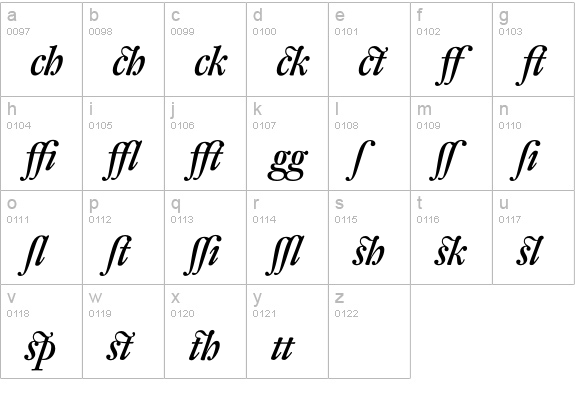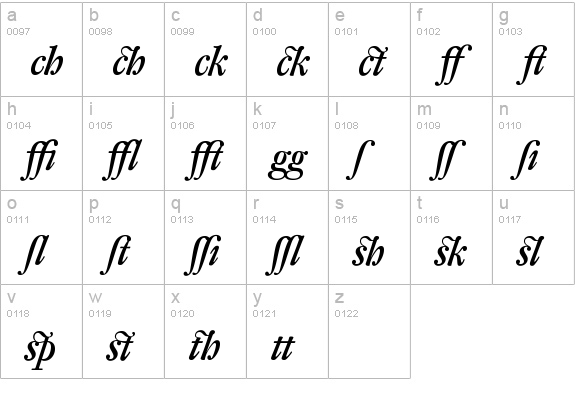
DTL Fleischmann D Medium Italic Alt Font Details
DTL Fleischmann D Medium Italic Alt is a balanced, medium-weight, italic variant in the DTL typeface family \xE2\x80\x94 well suited to sub-headlines, navigation, and balanced editorial work.
The DTL Fleischmann D Medium Italic Alt font is a classic and elegant typeface that exudes sophistication and professionalism. Its medium weight and italic style add a touch of flair to any design project, making it perfect for use in editorial layouts, branding materials, and more. What sets this font apart is its alternative characters that offer a unique and distinctive look. The subtle curves and slanted angles of the italicized letters give a sense of movement and dynamism, making your text come alive on the page. Whether you're working on a print publication, digital design, or web project, the DTL Fleischmann D Medium Italic Alt font is a versatile choice that will elevate your work to the next level. And the best part? It's completely free to download at FontsMarket.com, so you can start using it in your projects right away without any cost. Don't miss out on this opportunity to enhance your designs with this beautiful and stylish typeface.